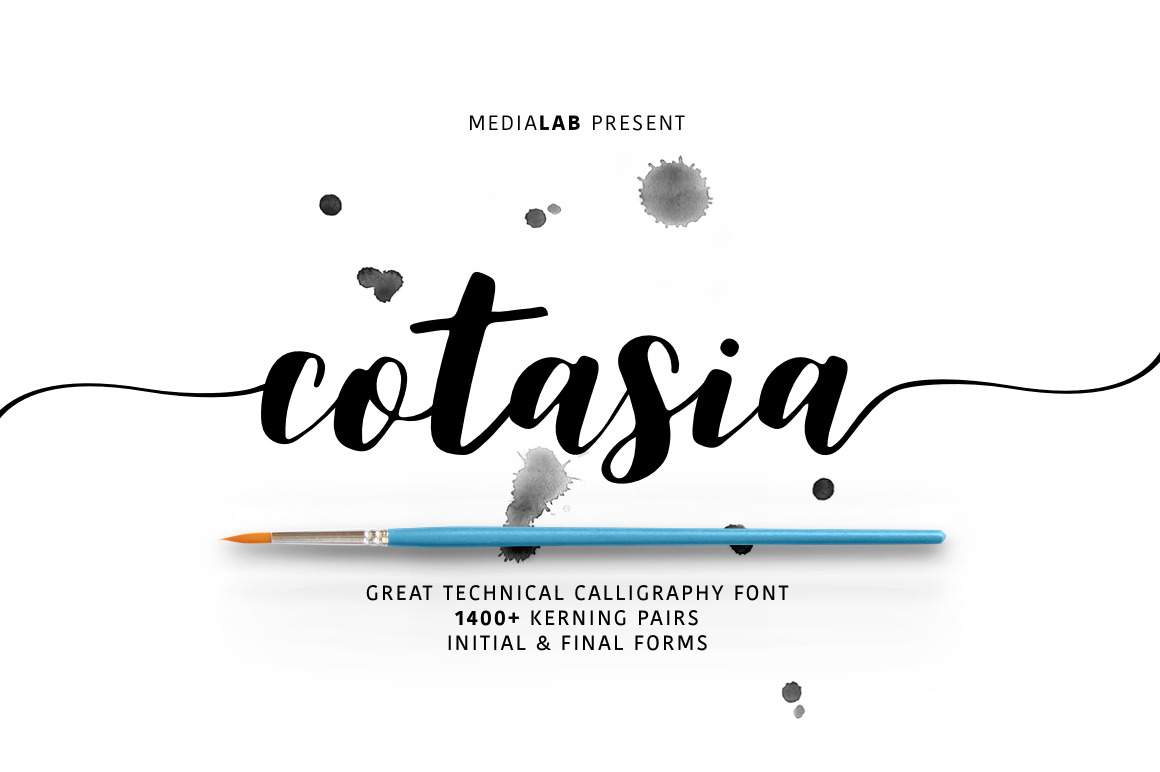
Cotasia swashes Wedding font
Cotasia - a new fresh handmade calligraphy font. Very suitable for greeting cards, branding materials, business cards, quotes, posters, and more!